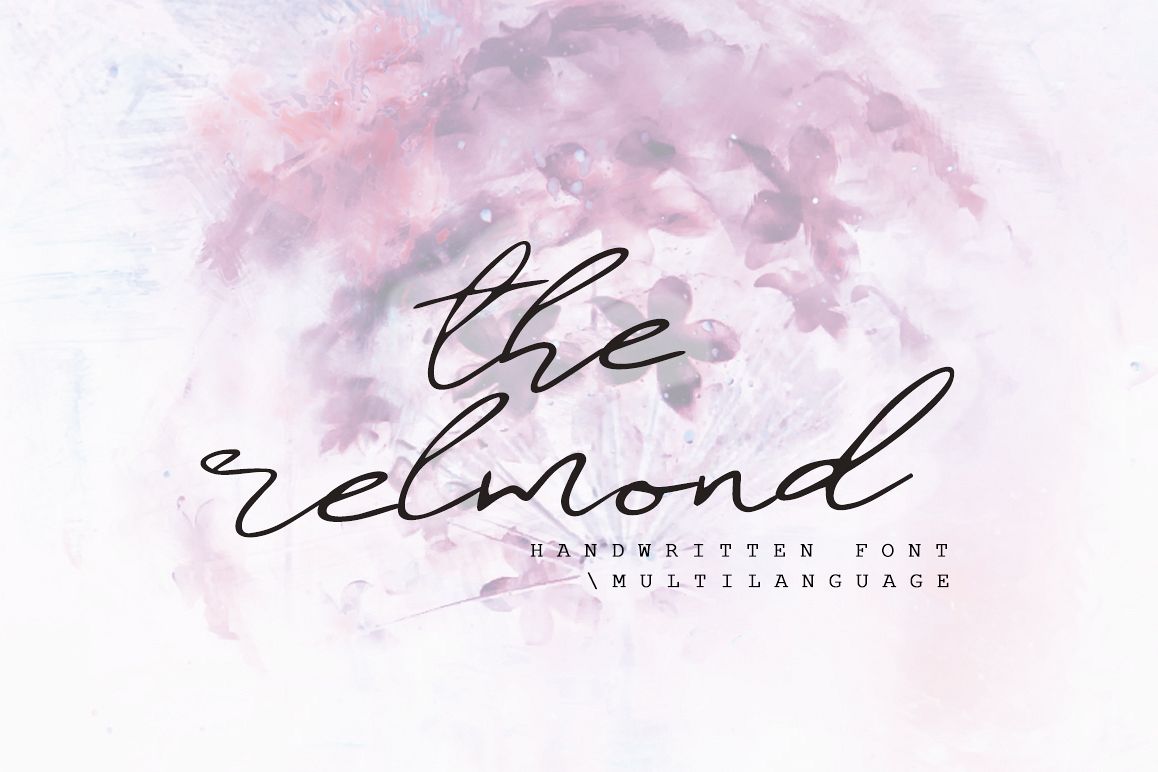
The Relmond
Introducing The Relmond Handwritten casual font with multilingual.
The Relmond is modern font, every single letters have been carefully crafted to make your text looks beautiful. With modern script style this font will perfect for many different project ex: logo, photography, watermark, quotes, blog header, poster, wedding, branding, logo, fashion, apparel, letter, invitation, stationery, etc. The Relmond also includes Regular and Bold, full set of uppercase and lowercase letters, multilingual symbols, numerals, punctuation.